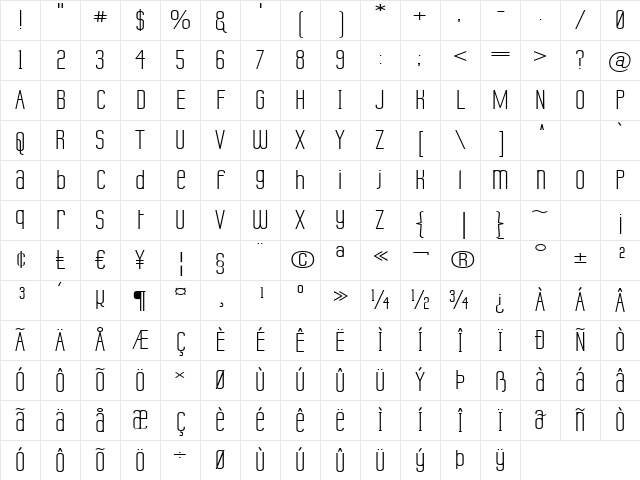
Labtop Unicase Wide Regular Free Font
Labtop Unicase Wide Regular
Design Context for Labtop Unicase Wide
Labtop Unicase Wide is a composed and adaptable typeface that performs quietly and consistently across a wide range of design contexts.
Pro Tip: Use Labtop Unicase Wide in both headline and body roles to test its range before committing to a single application.